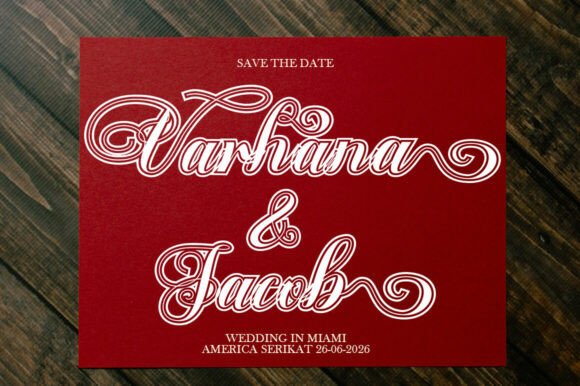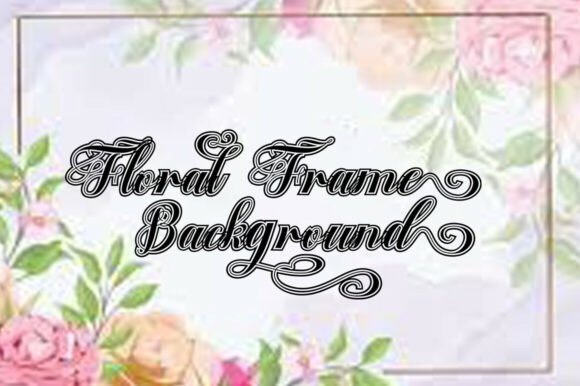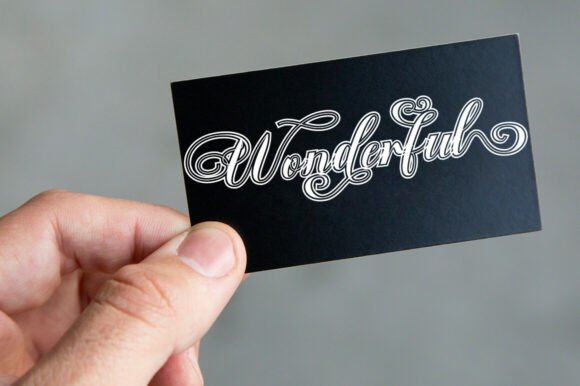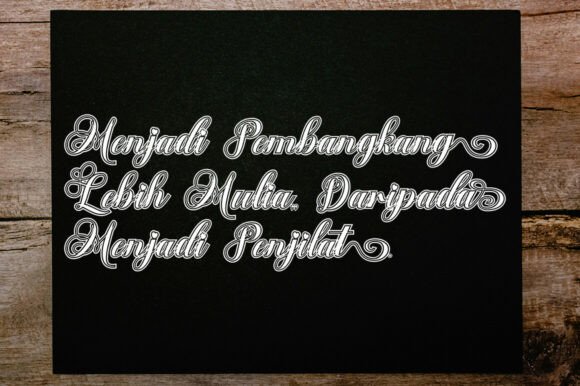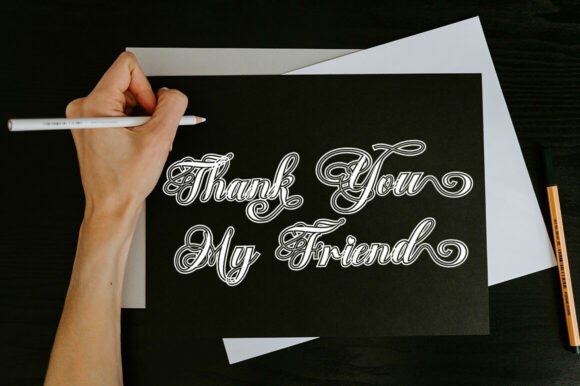
Auranytha Script Font: Elevate Your Designs with Elegance and Sophistication
Auranytha Script is a stunning calligraphy font that embodies the perfect blend of classic elegance and modern sophistication. This beautiful font is designed to add a touch of luxury and glamour to any design project, making it an ideal choice for designers and crafters looking to create visually appealing and high-end content.
What Makes Auranytha Script Font Special?
Auranytha Script is a classic decorative copper script font with a modern twist, carefully crafted to provide an elegant and refined aesthetic. The font features smooth, clean lines, and a feminine, sensual, and glamorous feel that makes it perfect for a wide range of design applications. Its luxurious letter connections and beautiful character changes add a touch of sophistication, making it an excellent choice for projects that require a high level of elegance.
Key Features of Auranytha Script Font
- Smooth and Clean Lines: Auranytha Script features smooth and clean lines that make it easy to read and perfect for use in a variety of design projects.
- Feminine and Sensual: The font’s feminine and sensual feel makes it ideal for designs that require a touch of elegance and sophistication.
- Glamorous and Luxurious: Auranytha Script’s glamorous and luxurious feel makes it perfect for high-end branding, product packaging, and other design applications that require a sophisticated aesthetic.
- Classic and Modern: The font’s classic decorative copper script style is perfectly balanced with a modern touch, making it versatile and suitable for a wide range of design projects.
- Multiple Alternative Styles: Auranytha Script comes with several alternative styles, providing designers with a range of options to choose from and making it easy to create unique and visually appealing designs.
Auranytha Script is perfect for a wide range of design applications, including:
- Wedding Invitations: The font’s elegant and sophisticated feel makes it ideal for wedding invitations, adding a touch of luxury and romance to your designs.
- High-End Branding: Auranytha Script is perfect for high-end branding, providing a sophisticated and elegant aesthetic that will elevate your brand’s visual identity.
- Product Packaging: The font’s luxurious feel makes it perfect for product packaging, adding a touch of elegance and sophistication to your designs.
- Magazine Titles: Auranytha Script is ideal for magazine titles, providing a bold and eye-catching aesthetic that will grab the reader’s attention.
- Fashion Logos: The font’s glamorous and luxurious feel makes it perfect for fashion logos, adding a touch of sophistication and elegance to your designs.
- Greeting Cards: Auranytha Script is perfect for greeting cards, providing a beautiful and elegant aesthetic that will make your designs stand out.
- Social Media Content: The font’s versatility makes it ideal for social media content, providing a sophisticated and elegant aesthetic that will elevate your online presence.
Ideal for Cricut/Silhouette Crafts and More
Auranytha Script is not only perfect for digital designs but also ideal for Cricut/Silhouette crafts, event posters, and classy editorial content. The font’s versatility makes it a valuable addition to any designer’s toolkit, providing a wide range of creative possibilities.
| Author | Shape Studio |
Auranytha Script Font is a stunning calligraphy font that offers a perfect blend of classic elegance and modern sophistication. With its smooth and clean lines, feminine and sensual feel, and luxurious letter connections, this font is perfect for a wide range of design applications. Whether you’re a designer or crafter looking to create visually appealing and high-end content, Auranytha Script is an excellent choice. Its versatility and elegance make it ideal for wedding invitations, high-end branding, product packaging, magazine titles, fashion logos, greeting cards, and social media content. So why wait? Elevate your designs with the elegance and sophistication of Auranytha Script Font today!